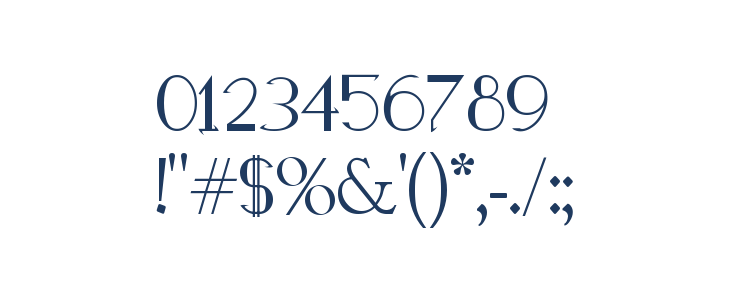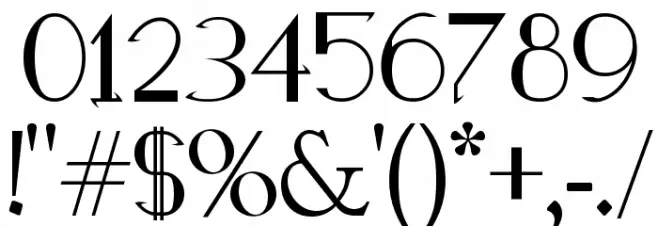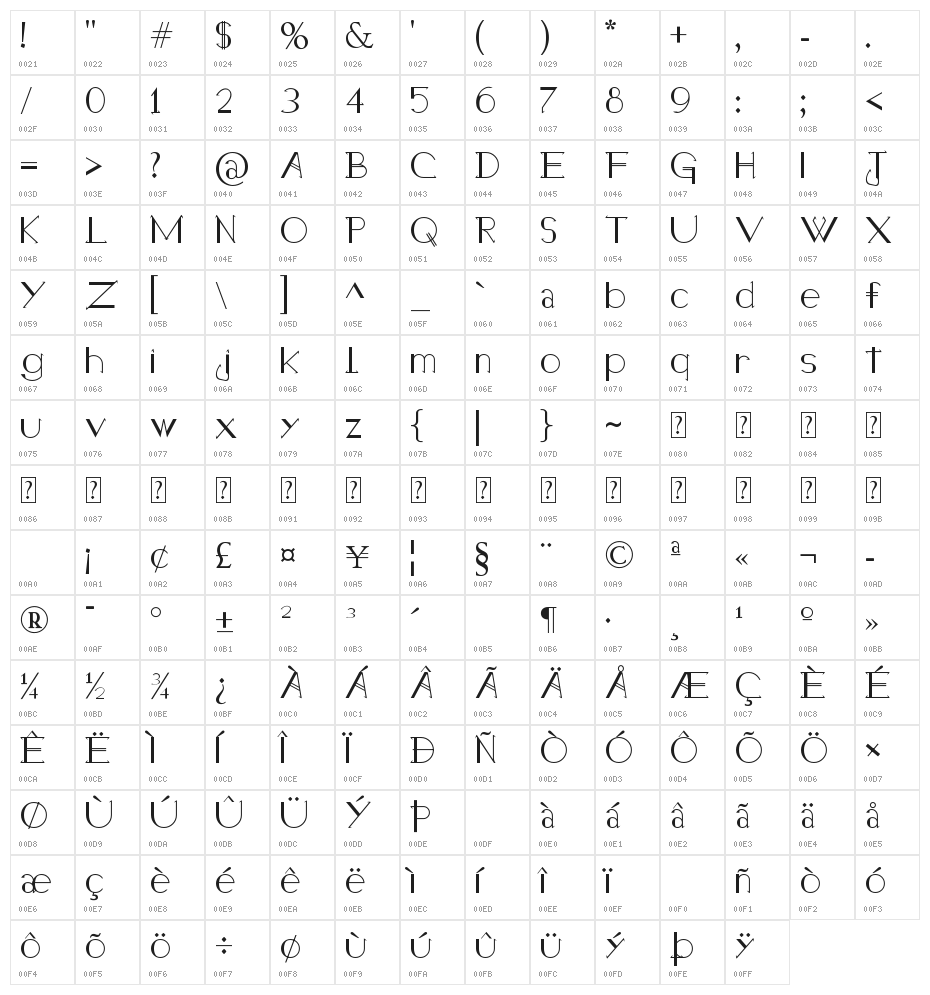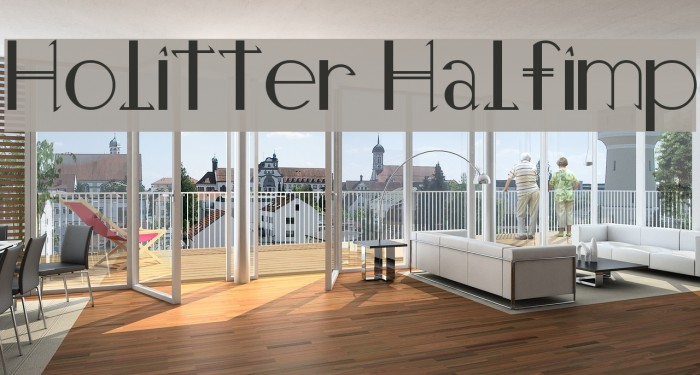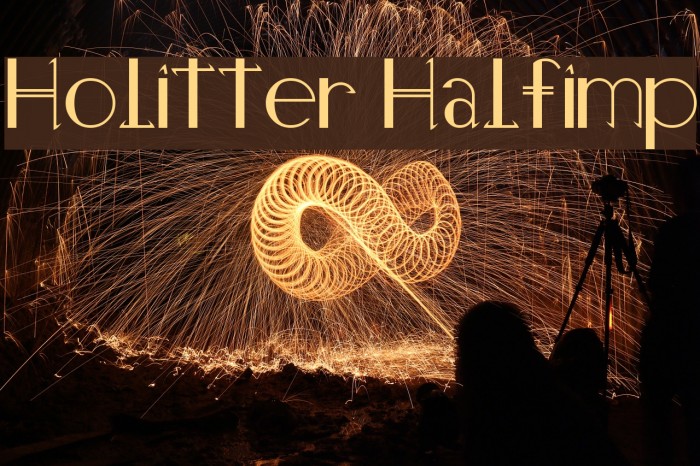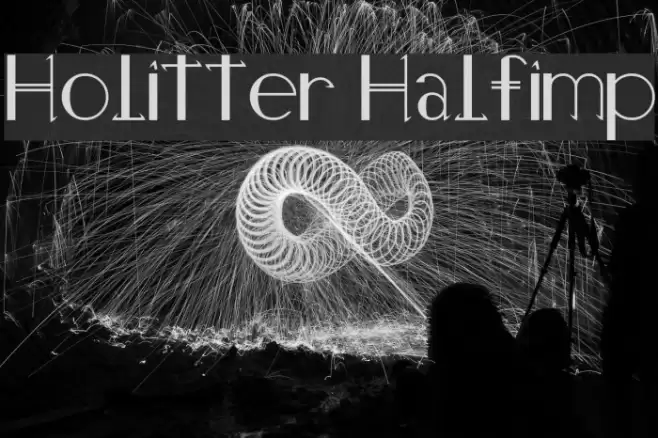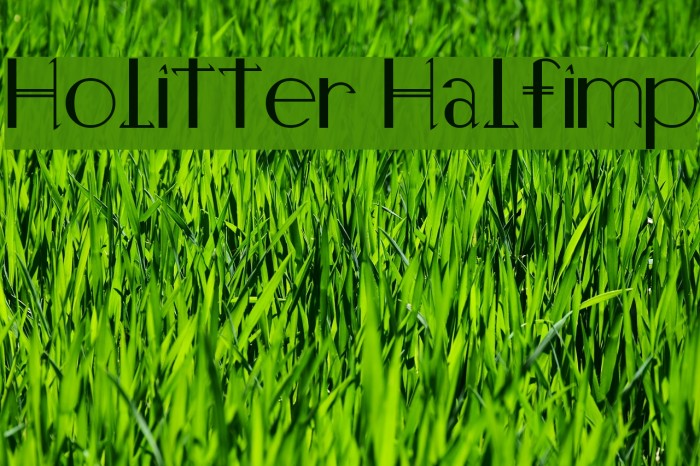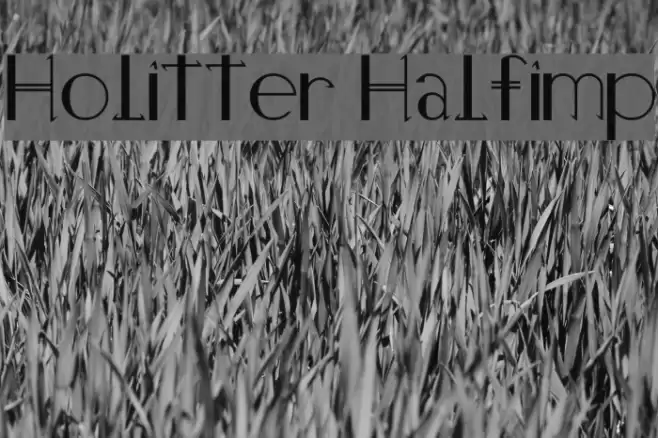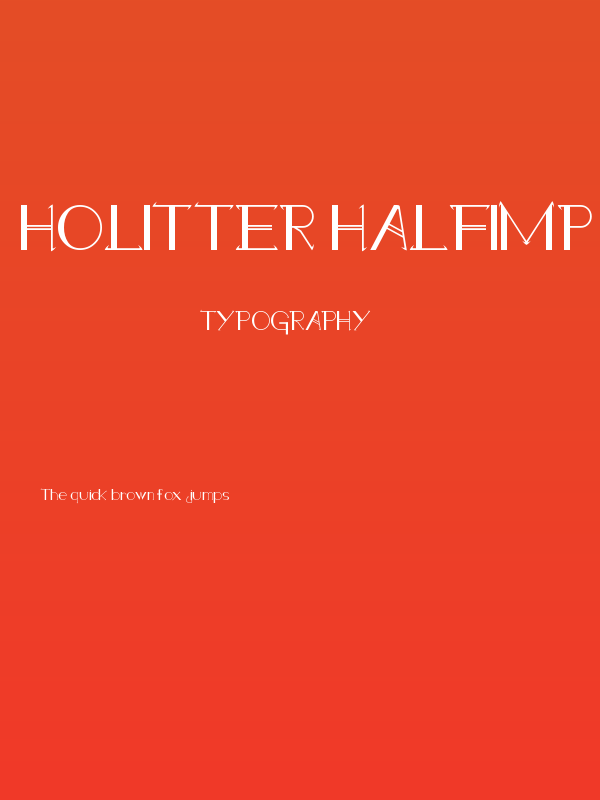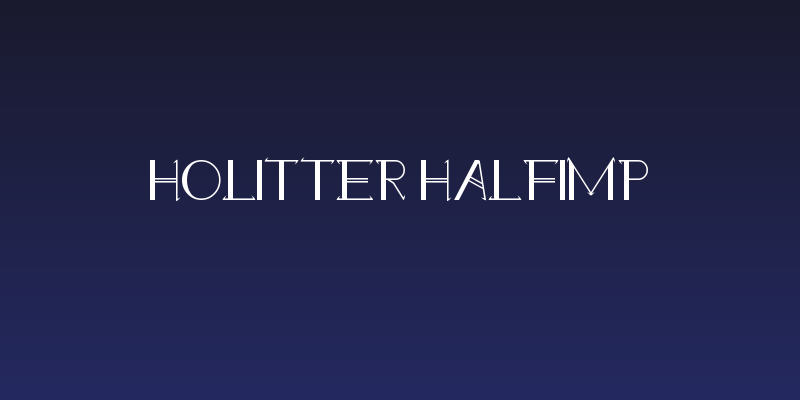
Holitter Halfimp Font
Holitter Halfimp Description
This font features a unique and modern design with a geometric flair. The uppercase letters are characterized by sharp angles and clean lines, creating a futuristic and edgy appearance. The lowercase letters maintain a similar aesthetic, with some characters displaying distinctive hooks and curves that add a touch of elegance. The numerals are bold and consistent with the overall style, ensuring readability while maintaining the font's unique character. Special characters are thoughtfully designed to complement the alphabet, making this font versatile for various applications.
| Overall Style | Modern, Geometric |
| Proposed Projects | Ideal for branding, logos, and editorial design where a modern and distinctive look is desired. |